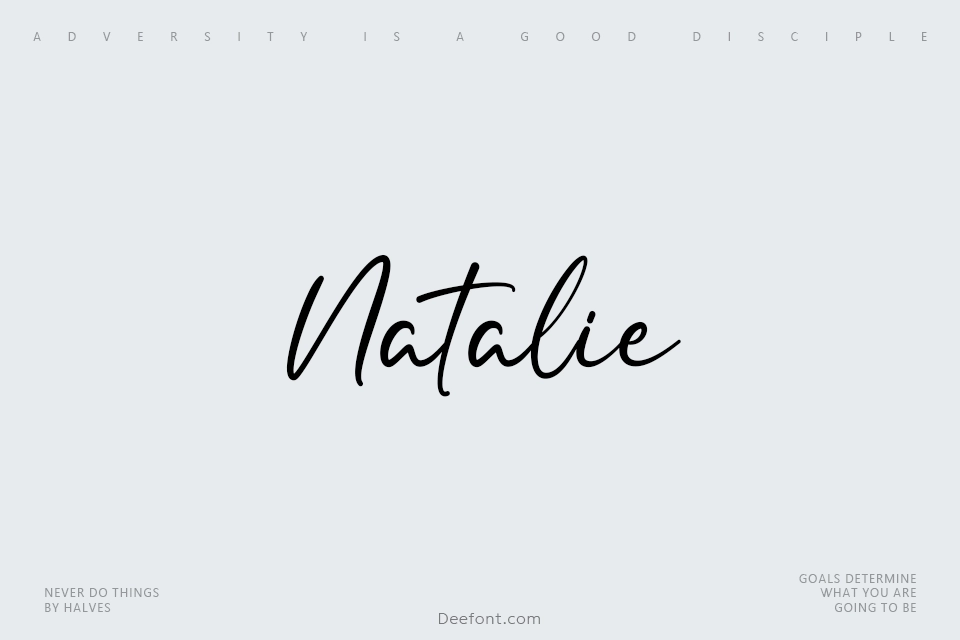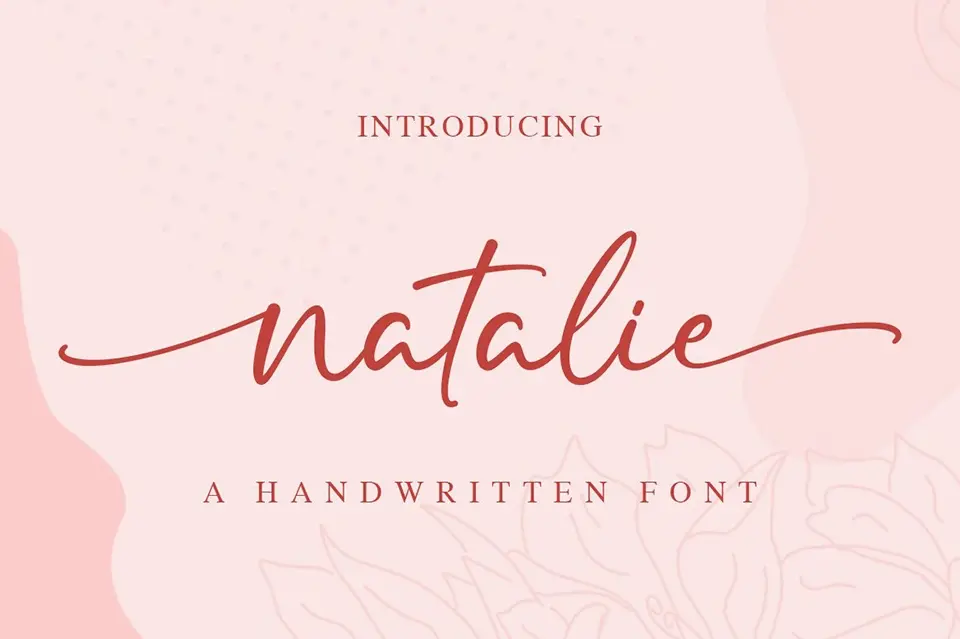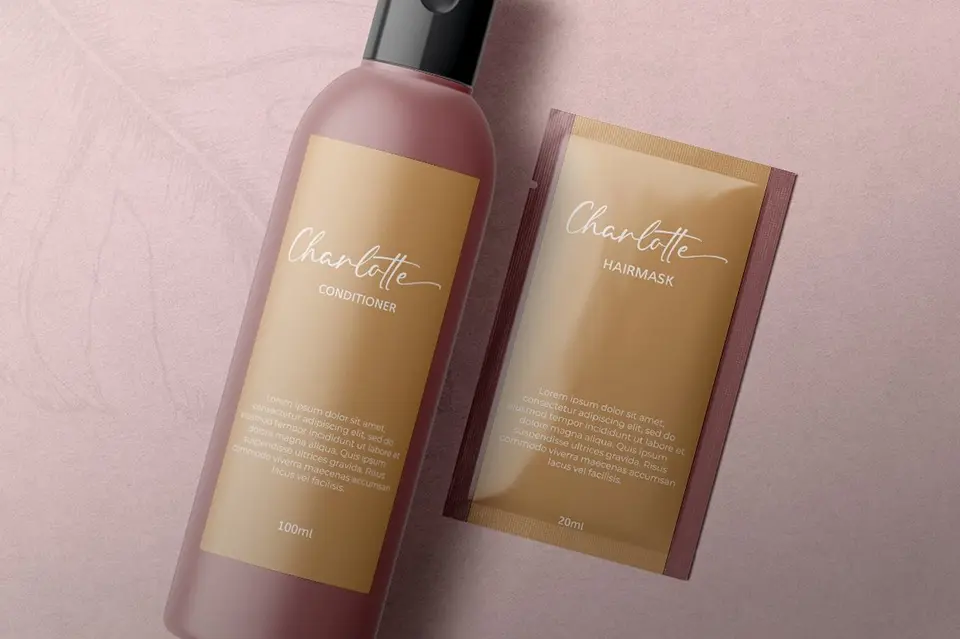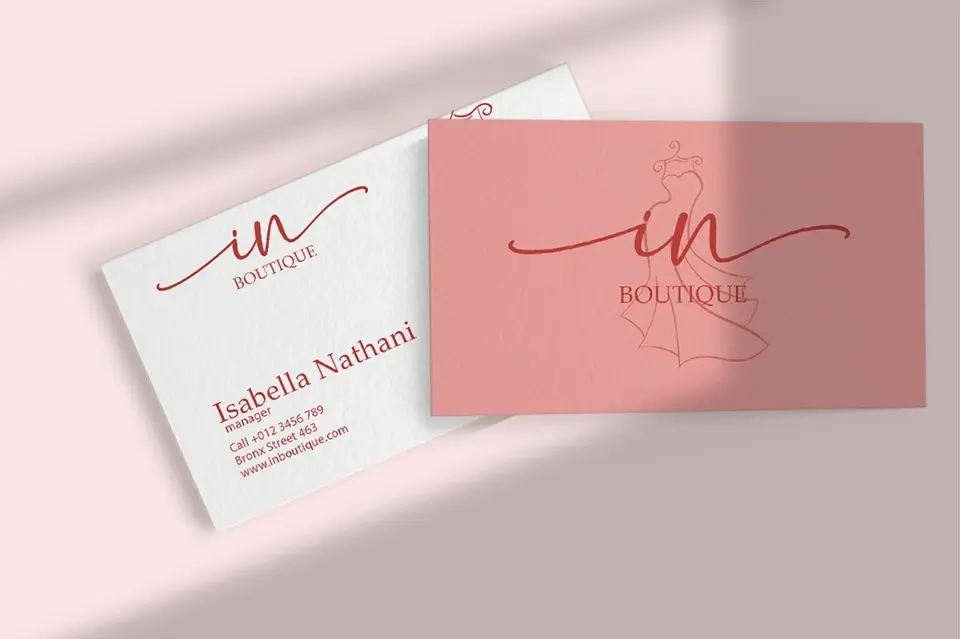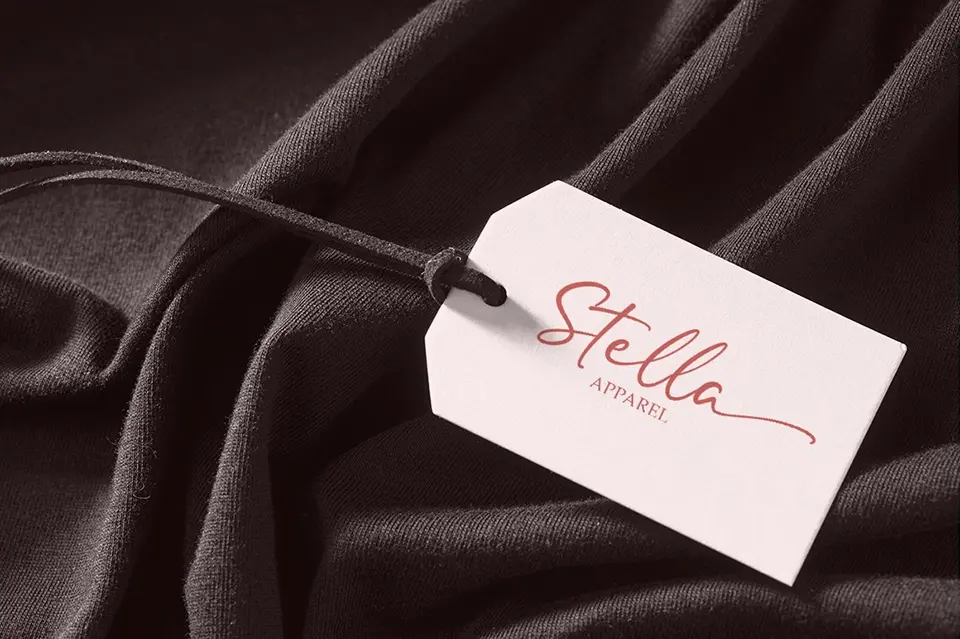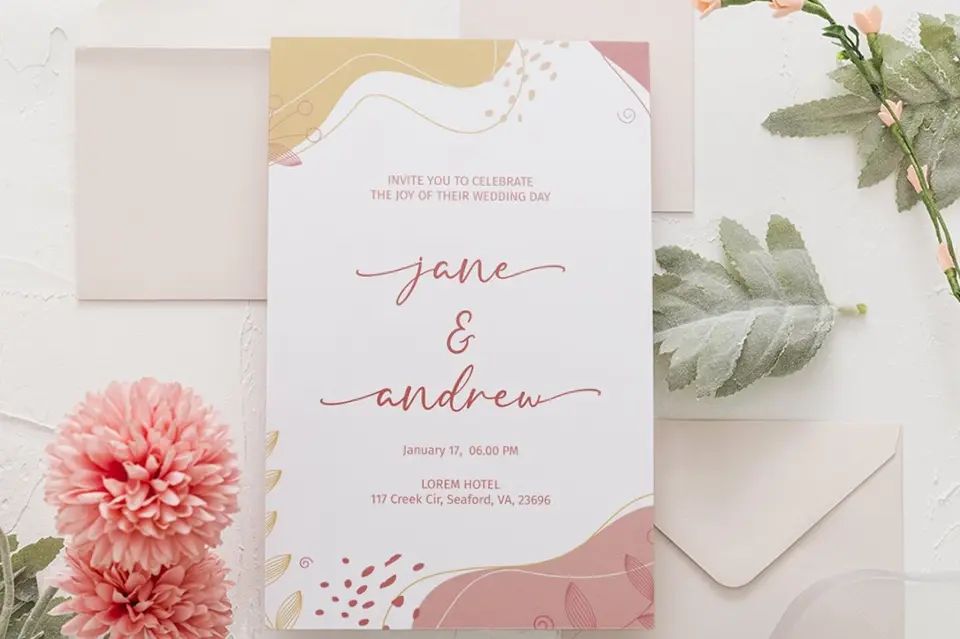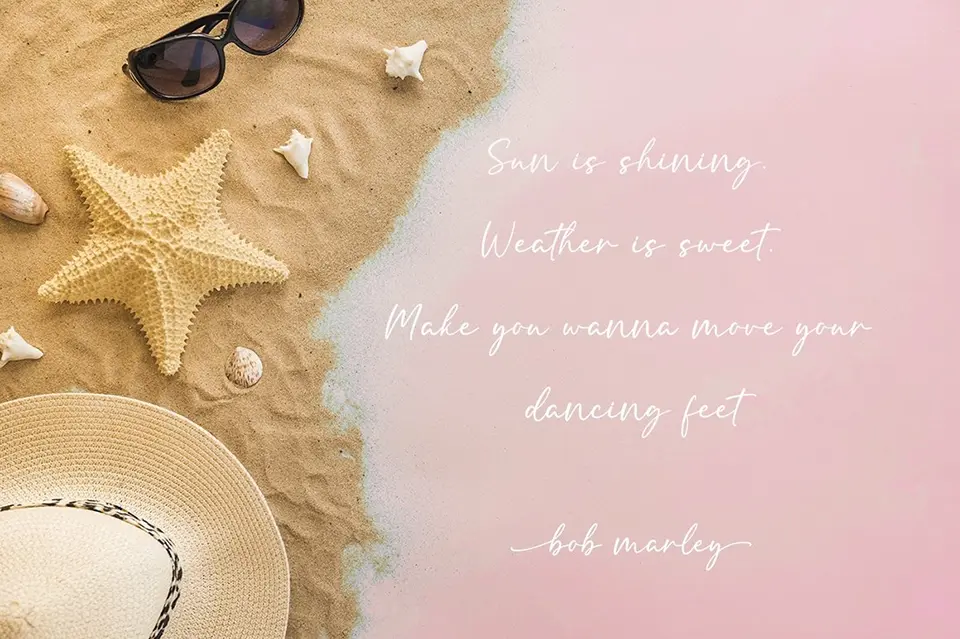
Natalie Font
Natalie is a flowing handwritten script font designed for elegance and charm in creative design work. With its gentle curves and natural pen strokes, Natalie adds a personal touch to wedding invitations, greeting cards, and branding projects. This font offers artistic versatility for stylish logos and expressive visual identities, making it a favorite for both casual and refined designs.